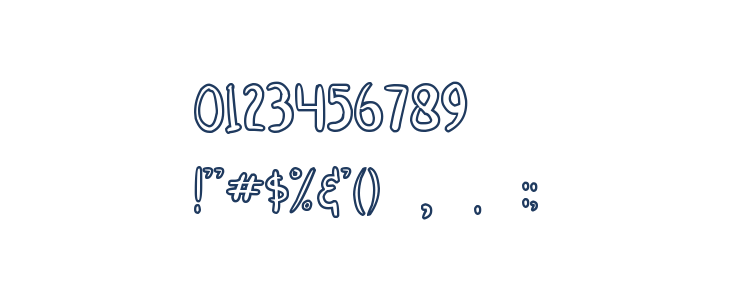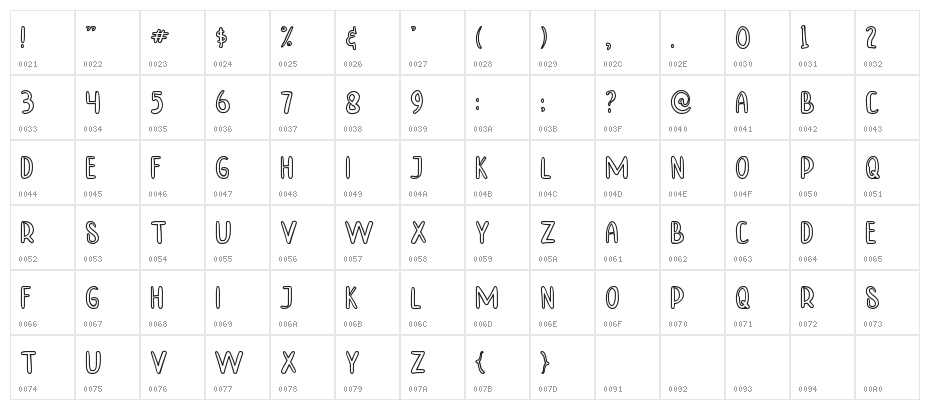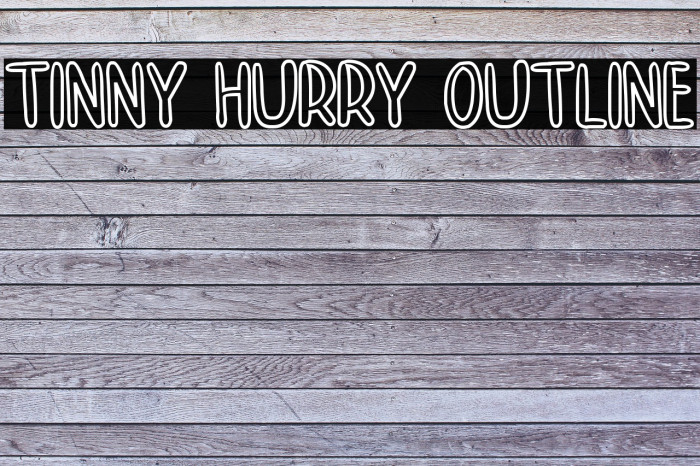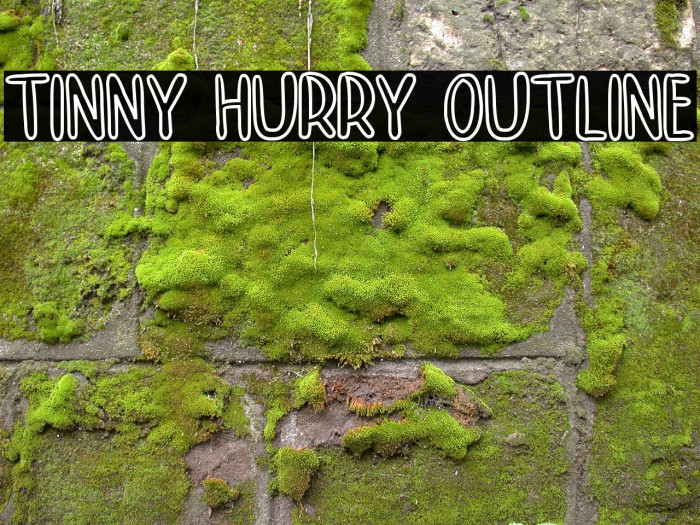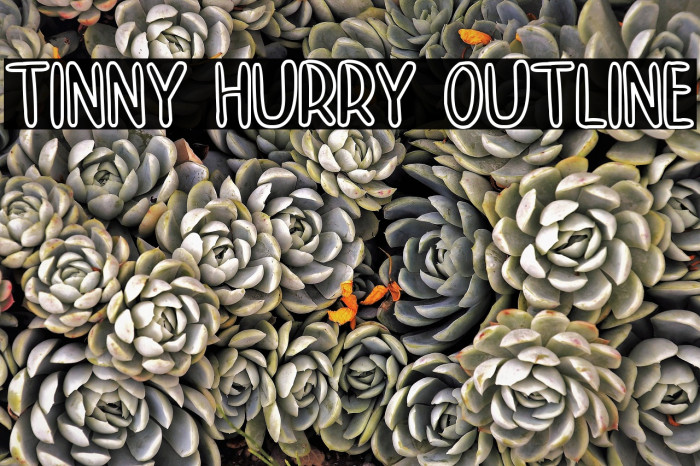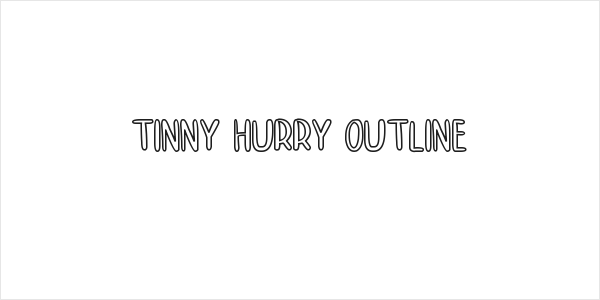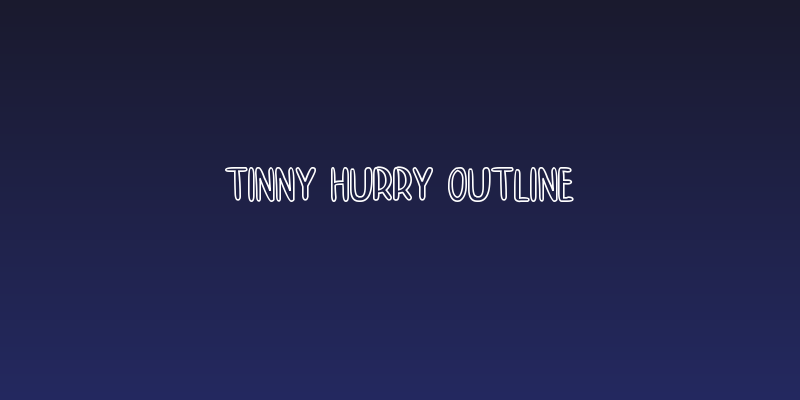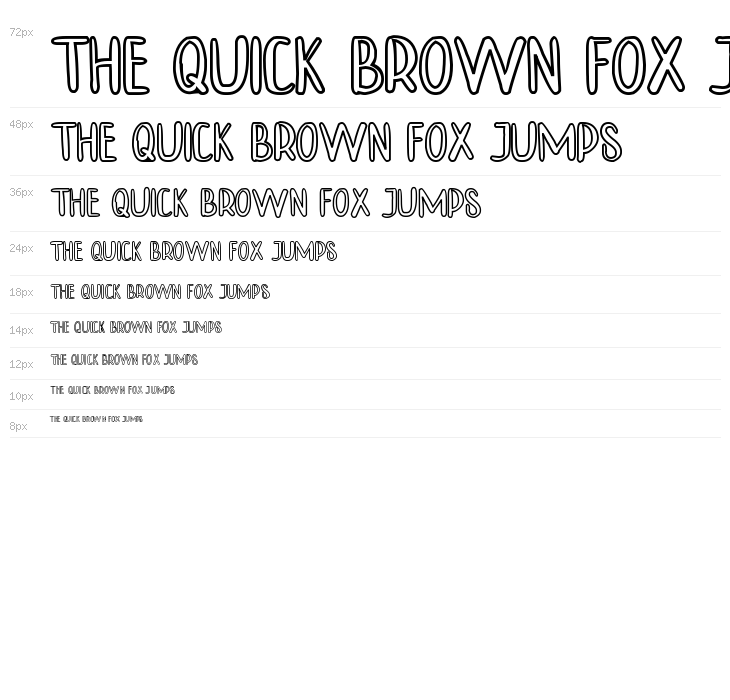
TINNY HURRY OUTLINE Font
TINNY HURRY OUTLINE Description
This playful and bold outline font features uppercase and lowercase letters with a consistent, rounded style. The characters are outlined, giving them a hollow appearance that adds a unique dimension to the text. The font maintains a uniform stroke width throughout, creating a harmonious and balanced look. Its whimsical and approachable design makes it suitable for a variety of creative projects. The numbers and special characters are designed to match the playful aesthetic, ensuring a cohesive look across all text elements.
| Proposed Projects | Ideal for children's books, playful branding, posters, and creative invitations. |